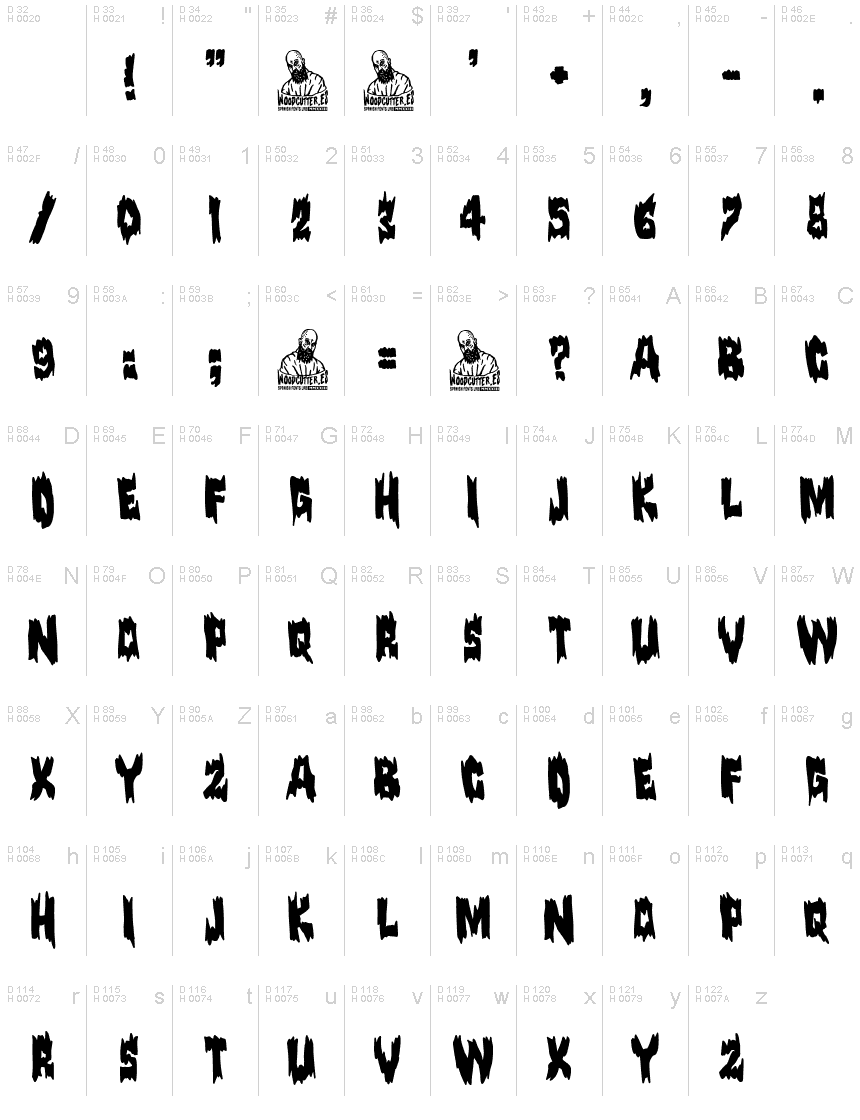
Boris Karloff Rules
Boris Karloff Rules, designed by Woodcutter, is a captivating display font that exudes an eerie and spine-chilling ambiance.
Its bold weight and condensed width create a striking visual impact, making it perfect for horror movie posters, haunted house advertisements, or Halloween-themed party invitations. This terrifying typeface will send shivers down your spine and leave a lasting impression on any design project seeking to evoke fear and suspense.